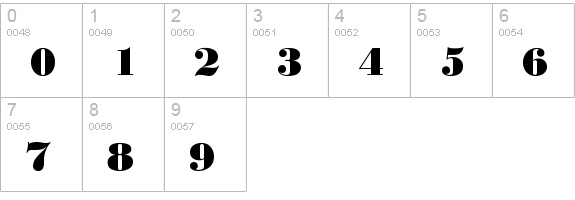
BodoniNo1EF-Black Font Details
BodoniNo1EF-Black is a maximum-weight, dramatic variant in the BodoniNo1EF typeface family \xE2\x80\x94 well suited to maximum-impact headlines, posters, and packaging.
BodoniNo1EF-Black font exudes elegance and sophistication with its bold and striking appearance. This timeless typeface is perfect for making a statement in headlines, logos, and other design projects. The sharp serifs and clean lines of BodoniNo1EF-Black add a touch of modernity to its classic design, making it a versatile choice for both print and digital applications. And the best part? BodoniNo1EF-Black font is available for free download at FontsMarket.com. So whether you're working on a branding project, editorial layout, or any other creative endeavor, this font is a must-have in your toolkit. Don't miss out on the opportunity to enhance your designs with the sleek and impactful BodoniNo1EF-Black font - download it now and elevate your typography game!